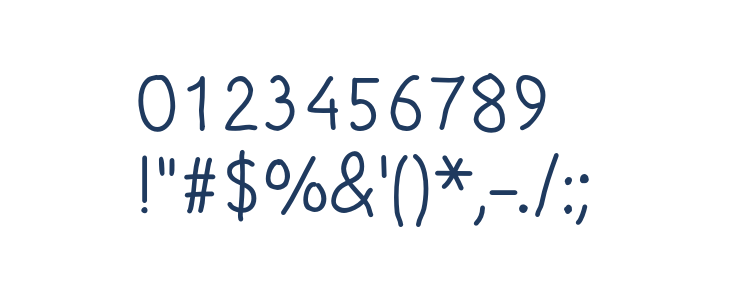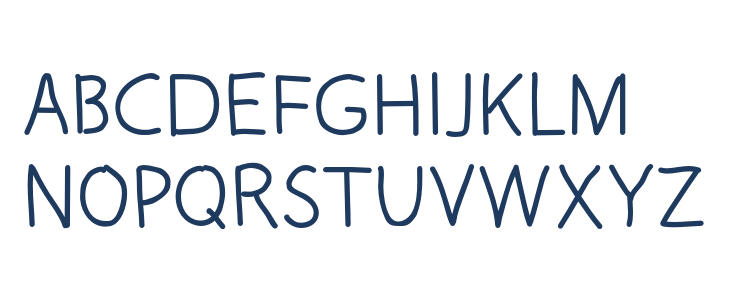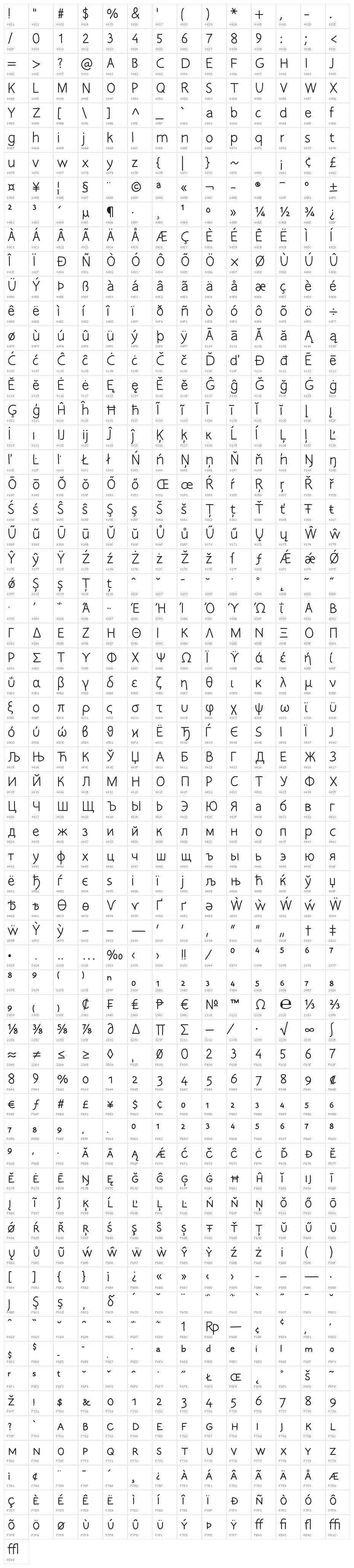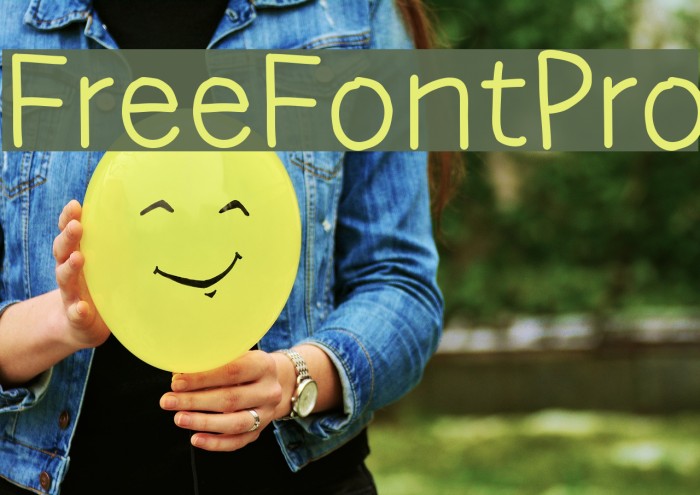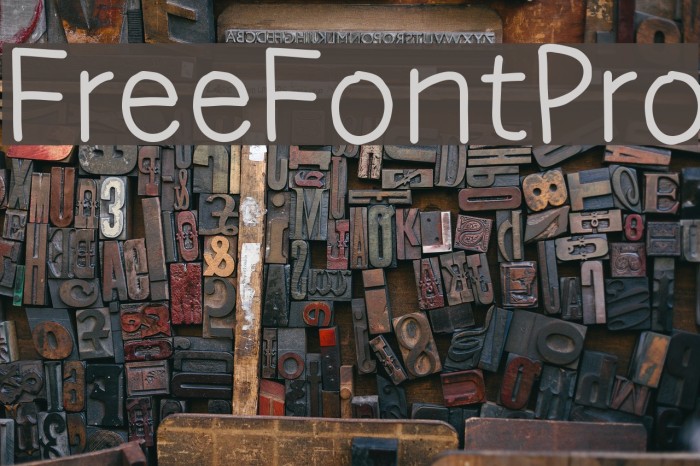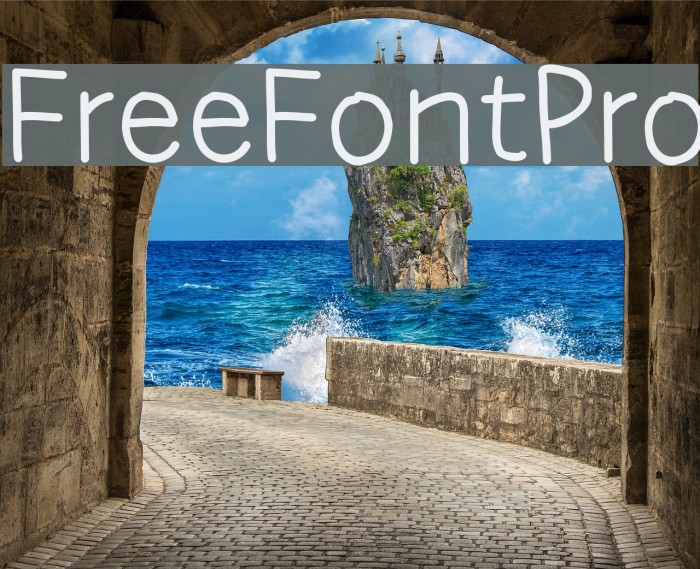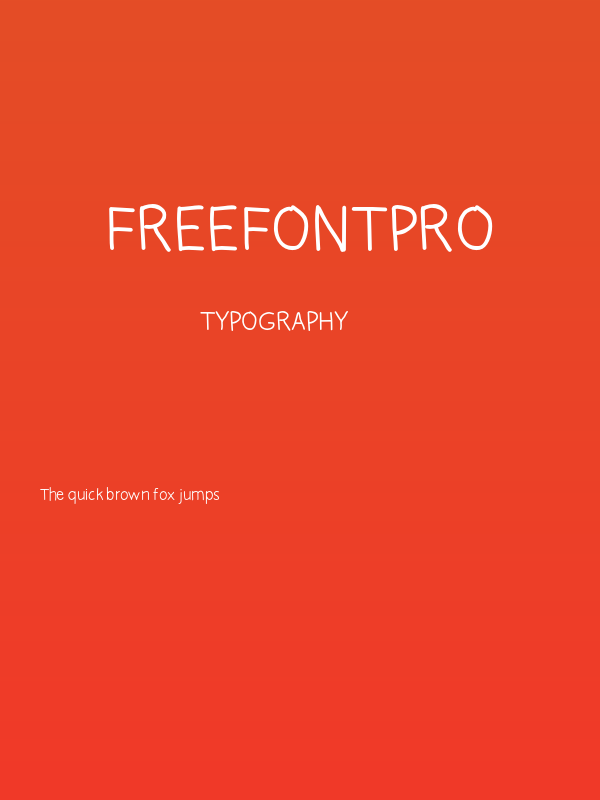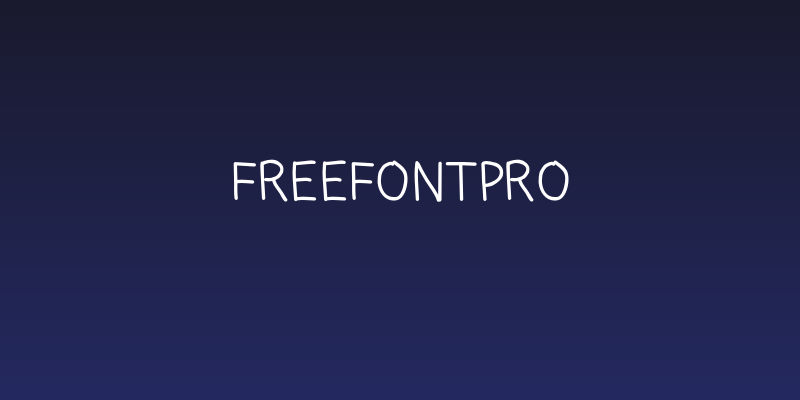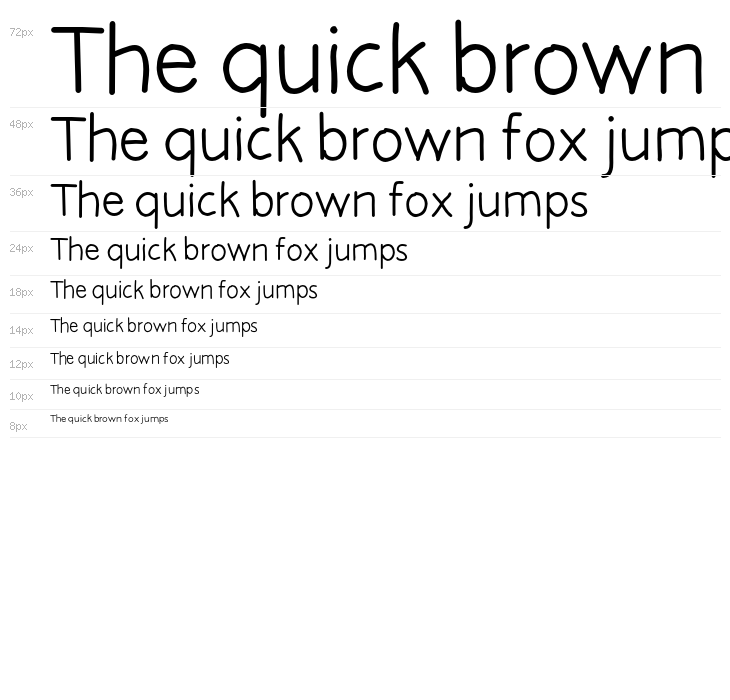
FreeFontPro Font
FreeFontPro Description
This font features a playful and casual handwritten style, characterized by its rounded and slightly irregular letterforms. The uppercase and lowercase letters maintain a consistent flow, with a friendly and approachable appearance. The numerals are clear and easy to read, complementing the overall informal aesthetic. Special characters are included, adding versatility for various uses. The font's design is simple yet effective, making it suitable for projects that require a personal touch.
| Use Case | Headlines, Informal text, Branding |
| Proposed Projects | Ideal for greeting cards, children's books, casual branding, and social media graphics. |